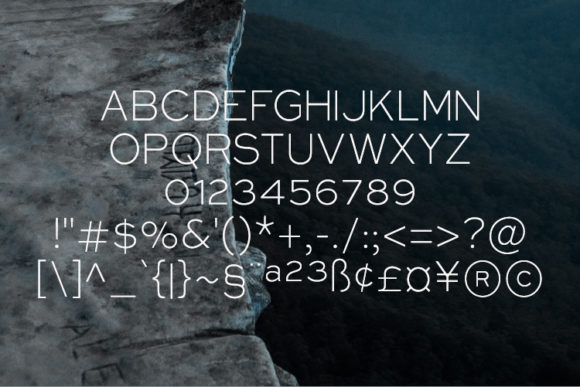
Introduction to Progenzo Font
As a designer, there’s nothing quite like the thrill of bringing a creative project to life. It’s the moment when all the elements come together – the perfect balance of color, texture, and typography – and you know you’ve created something truly special. For many of us, that moment often begins with the humble letter ‘a’ or ‘e’, the foundation of any great design. And that’s where Progenzo Font comes in – an elegant sans serif font that sets the tone for any project, whether formal or non-formal.
Key Features of Progenzo Font
- High-quality design for creative projects, suitable for a wide range of applications, from logos to brochures.
- Features a transparent background, allowing for easy layering and customization.
- High-resolution design, suitable for print and digital applications, with a minimum resolution of 300 DPI.
- Unique, handcrafted design that adds a touch of personality to any creative project.
Honest Review: Progenzo Font
I recently came across the Progenzo Font, a free download that caught my eye due to its modern and sleek design. As a designer, I was excited to dive in and explore its capabilities.
What works well: ✨ The font has a high quality feel, making it perfect for creative projects where a professional look is essential. The transparent background option is also a plus, allowing for seamless integration with any design. The font’s versatility is another major plus, making it suitable for a wide range of designs.
Some of my favorite features include:
- Stylish and modern design
- Perfect for creative projects and branding
- High quality and detailed font
Overall impression: The Progenzo Font is a solid addition to any designer’s toolkit, offering a high quality and versatile font that’s perfect for creative projects. While it has some limitations, it’s definitely worth checking out for any designer looking for a free and stylish font option.
Progenzo Font is perfect for designing logos, brochures, business cards, and other marketing materials. Its high quality and transparent background make it ideal for creating eye-catching graphics and visual content.
To get the most out of Progenzo Font, experiment with different font sizes, colors, and styles to find the perfect combination for your creative project. You can also use Progenzo Font in combination with other design resources to create unique and engaging visual content.